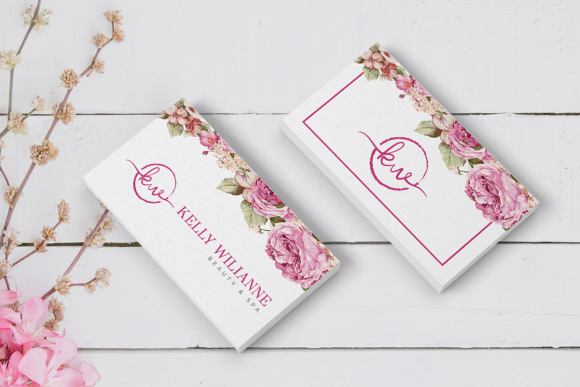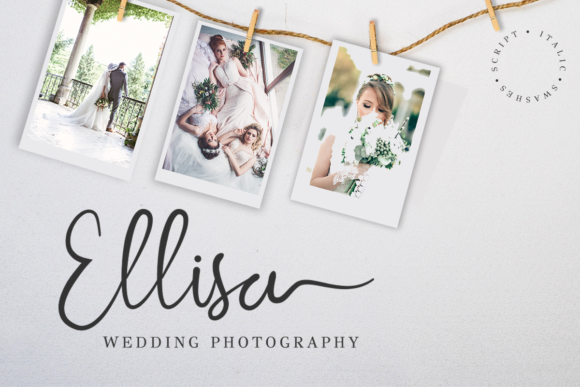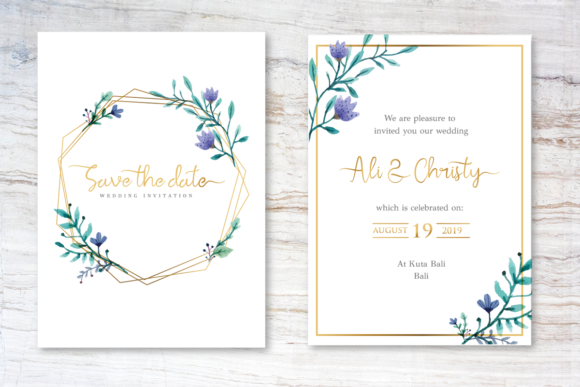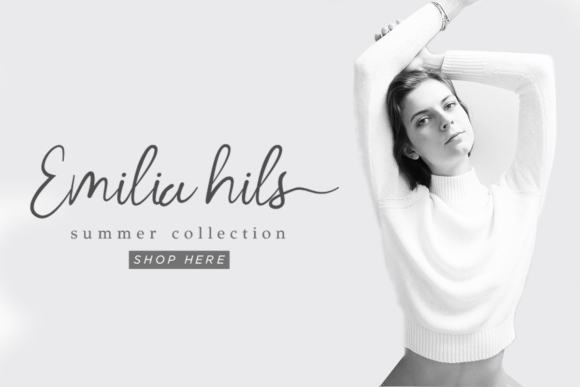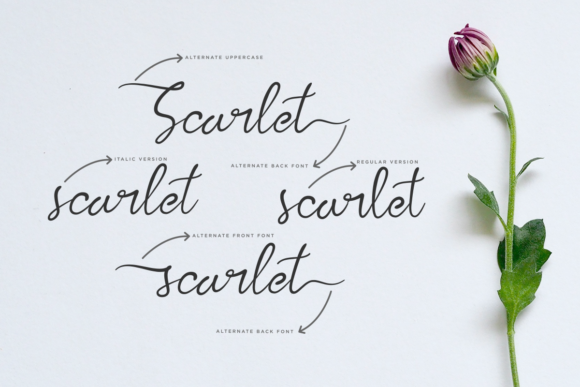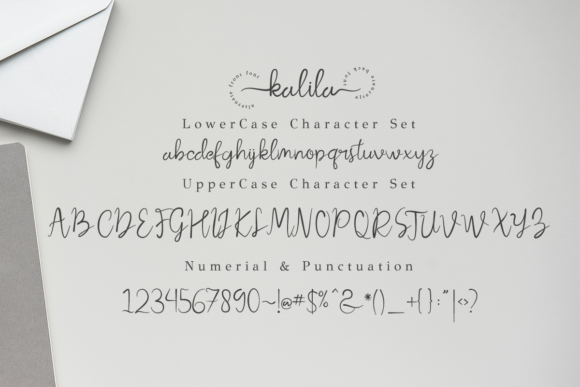
Kalila Script Font
About Kalila Script Font
The Kalila is a modern calligraphy font with handwritten, sophisticated flows. It includes short lowercase beginning and lowercase ending heart swashes, which serve to connect two words or letters (This is so perfect for invitations, monograms, etc) and long lowercase beginning and ending swashes.
It has smooth texture, so it’s perfect for all types of printing techniques + you can do embroidery, laser cut, gold foil etc.